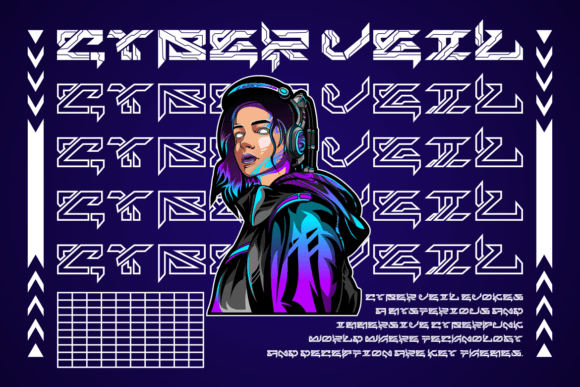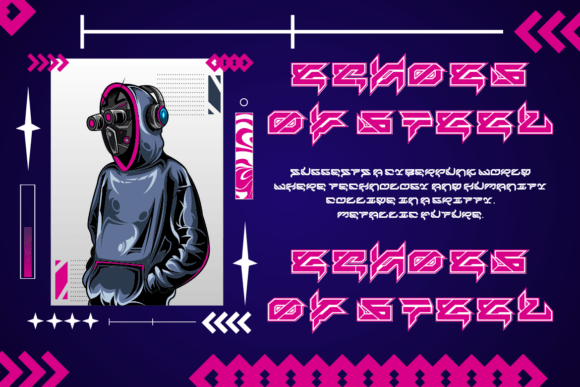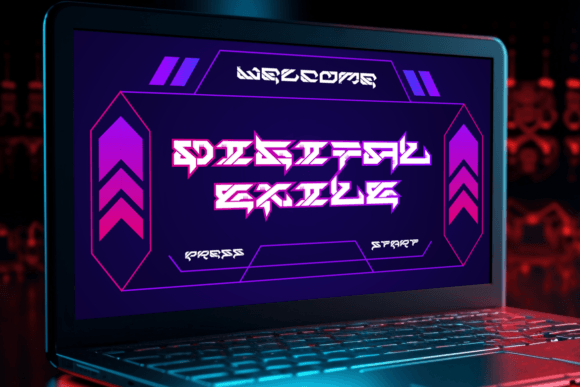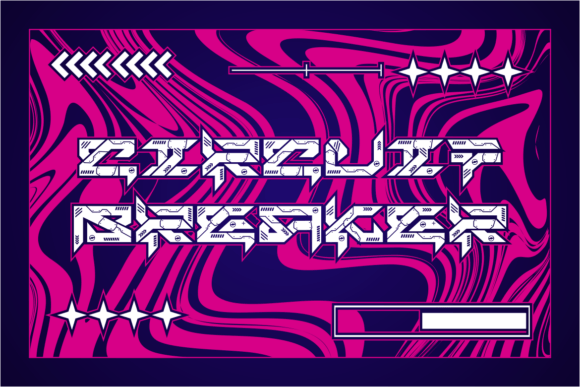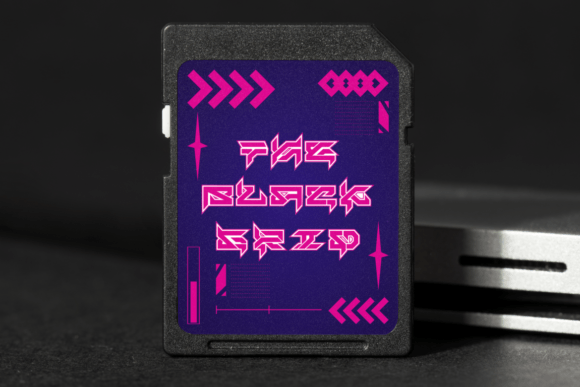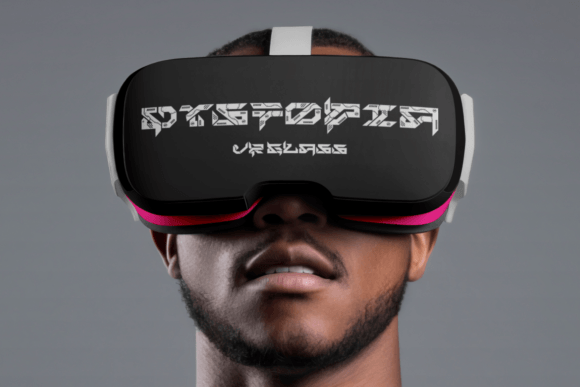
Introduction to Neuro Hack Font
Have you ever stared at a blank canvas, waiting for that spark of inspiration to hit you? For designers, this moment is a familiar feeling. You’re searching for the perfect font to elevate your project and give it that extra oomph. Well, we’ve got just the thing – the Neuro Hack Font.
This dynamic typeface is a game-changer for creatives working on high-tech, sci-fi projects. With its futuristic design and edgy feel, the Neuro Hack Font is the ultimate design resource for anyone looking to infuse their project with a modern, tech-savvy vibe. Whether you’re designing a movie poster, game cover, or business card, this font is sure to impress with its high-quality, transparent background and sleek lines.
Key Features of Neuro Hack Font
- High-quality design resource ideal for creative projects, including digital art and graphic design.
- Features a unique, futuristic aesthetic with a transparent background, allowing for flexibility in design applications.
- Unique characteristics include a bold, geometric design and a wide range of weights and styles, making it suitable for various design needs.
- Perfect for designers and artists looking for a modern, high-quality font to elevate their creative project.
Honest Review: Neuro Hack Font
As a designer, I’m always on the lookout for high-quality design resources to elevate my creative projects. Recently, I had the chance to work with the Neuro Hack Font, and I’m excited to share my thoughts with you.
Here are the pros and cons of the Neuro Hack Font:
- ✨ Clean and modern design aesthetic that works well for digital products and interfaces
While the Neuro Hack Font is a solid choice for many design projects, there are a few limitations to consider:
- ⚠️ Limited character set, which may not be suitable for projects requiring a wide range of languages or special characters
- ⚠️ May not be suitable for print projects, as the font is optimized for digital use
Overall, the Neuro Hack Font is a great addition to any designer’s toolkit. Its clean design and transparent background make it a versatile choice for a variety of creative projects. While it may have some limitations, I would definitely recommend it for designers looking for a high-quality, free design resource.
The Neuro Hack Font is ideal for a variety of creative projects, including:
- Logo design and branding
- Infographics and data visualization
- Social media graphics and advertising
Alternatives to Neuro Hack Font
Open Sans is a popular, high-quality sans-serif font suitable for a wide range of creative projects. It’s highly legible and works well on both digital and print designs. Open Sans can be used for body text, headings, and even as a design resource for logos.
When to use: Open Sans is a versatile font that can be used for various design projects, from brochures to website headers. It’s an excellent choice for those seeking a clean and modern design.
Comparison to Neuro Hack Font: While Open Sans has a similar clean and modern feel, it’s more versatile and suitable for a broader range of design projects. Neuro Hack Font has a more unique aesthetic, with a focus on bold, geometric shapes.